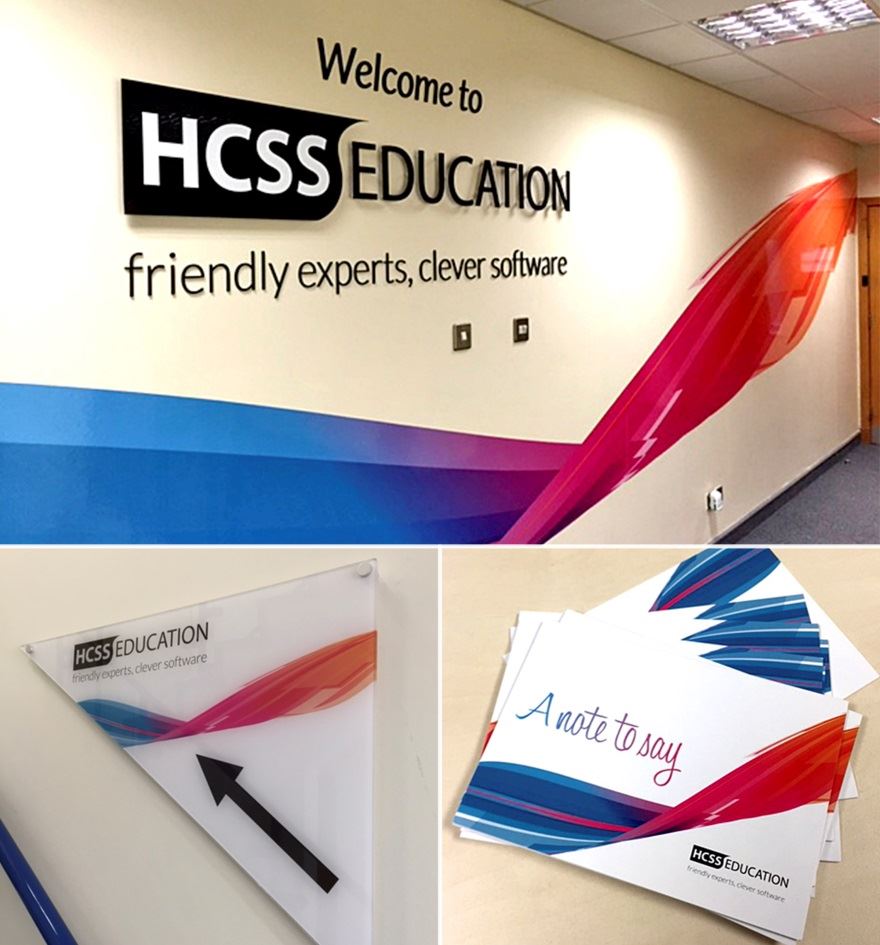
Colors, Fonts and Design Elements...Oh My! A Guide to Choosing How to Reflect Your Business
Choosing how to visually reflect the personality of your business is the one of the most important decisions you can make. The logo design, the colors and the fonts/typestyles you use should all work together to convey the look, feel and voice of your brand. Once determined, these elements need to be cohesively incorporated throughout all your visual communications and marketing channels—from exterior signs, interior décor graphics, vehicle graphics, brochures, business cards, product packaging, website, social media and much more.
Legendary logo designer Saul Bass said, “Design is thinking made visual.”
So how can you translate your brand into visual elements that are unique to you so your customers can clearly identify you? Here are a few important factors to consider when developing your brand identity.
A wall has the HCSS logo on it, with a wall sign and stationary with their logo
Color
Different colors evoke different reactions from people. If you ask a group of people what their favorite color is, you will get a variety of responses, but there are some commonalities regarding what specific colors mean and express. For example, warm colors (red, orange, yellow or a combination of these) can reflect passion, happiness, enthusiasm and energy. In turn, cool colors (green, blue and purple) can signify a sense of calmness, natural surroundings and sophistication.
When selecting colors for your business, it’s so important to look at how the colors will make your customers feel about your brand and the products or services you’re providing.
Font/Typestyle
Selecting the right font is another crucial factor in your branding. The typestyle needs to be both appealing and readable. It needs to be consistent with the image that you want to project, but also work well on larger scale signs and visual graphics. For example, Brush Script or Vladimir Script may be pretty on a printed invitation that is read up close, but it will likely be unreadable on a sign from far away. Instead, select a clear, concise font that won’t take away from your logo while still complimenting your brand personality.
Graphic Elements
Your logo and branding may also include other graphic design, photos or illustrated elements—for example, Target®’s red bulls-eye graphic, the Nike® swoosh or Ralph Lauren®’s polo player figure. Graphic elements can be used along with your logo text or by itself to identify your brand. Whether it’s a single shape or illustration, effective logo graphics should be simple, yet memorable and unique, and should further symbolize your brand personality.
Lastly, it’s essential that your business logo and branding elements can be easily and consistently translated across all your visual communications implementations. Can your logo be displayed on a large exterior building sign at your location as well as on your printed materials and letterheads? Can your branding be extended to your interior décor graphics, such as dimensional logos in the lobby and meeting areas, wall graphics in your hallways and conference rooms, and incorporated on wayfinding and directional signs?